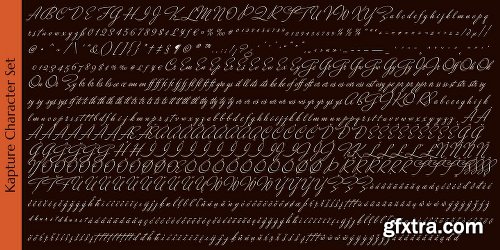
Kapture Font
The Kapture font is a script font by Stiggy & Sands. This formal, wedding typeface has extensive OpenType support including 2 additional stylistic sets, Contextual Alternates, Oldstyle Figures and Standard Ligatures giving you plenty of options to allow you to create something truly unique and special. Kapture is designed by Brian J. Bonislawsky and Jim Lyles and has extensive Latin language support.